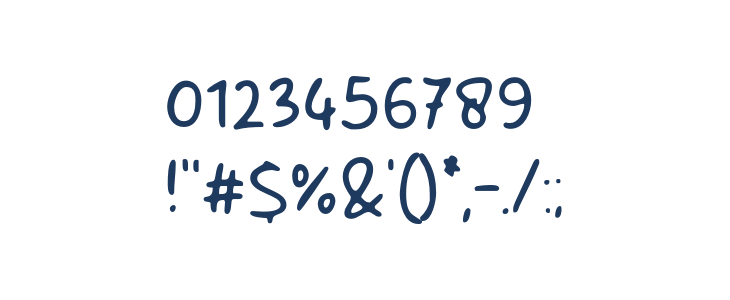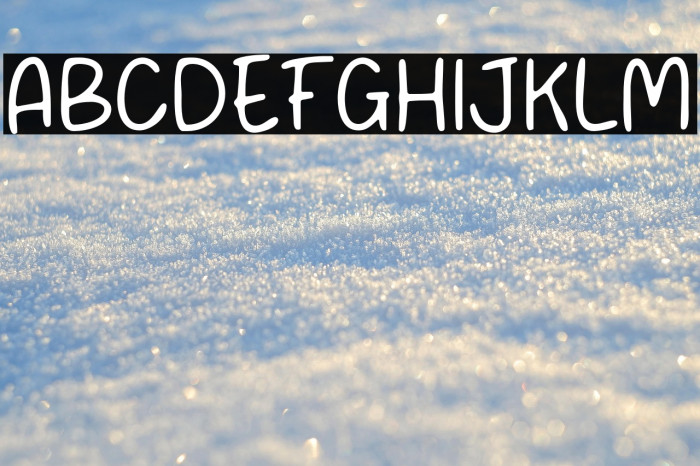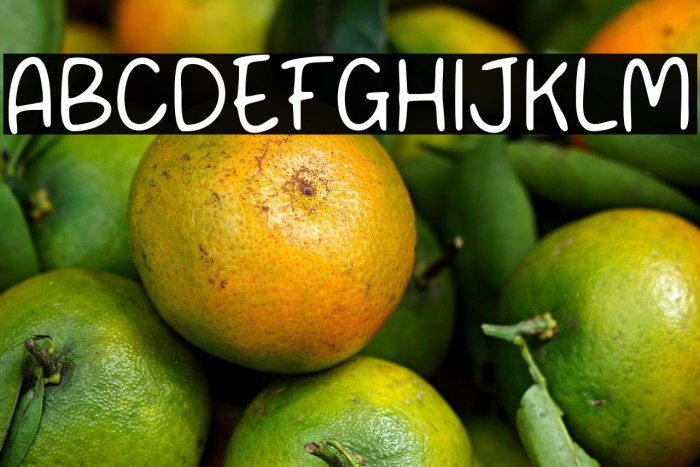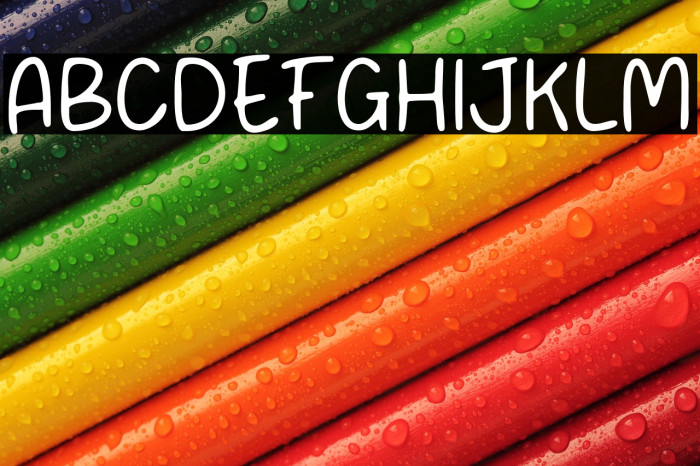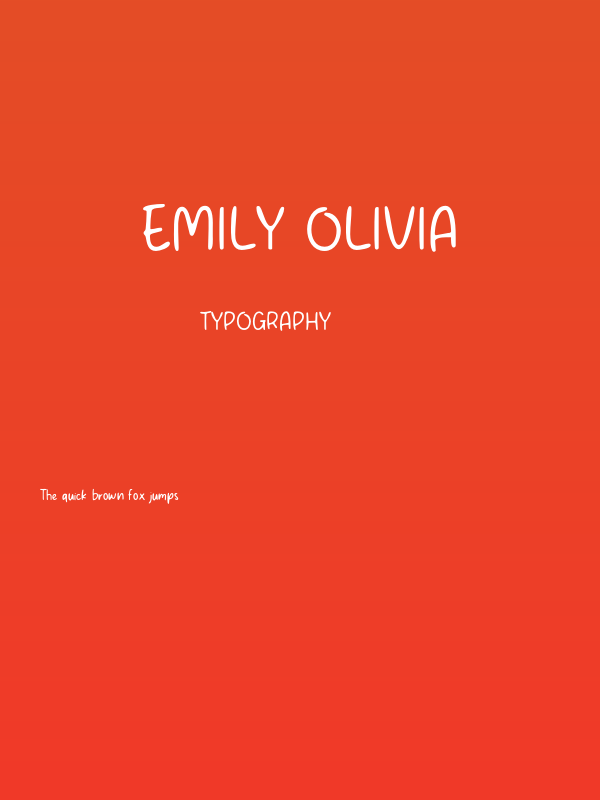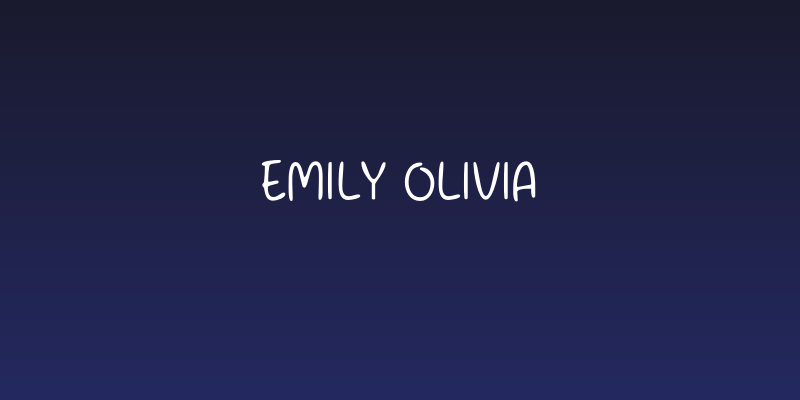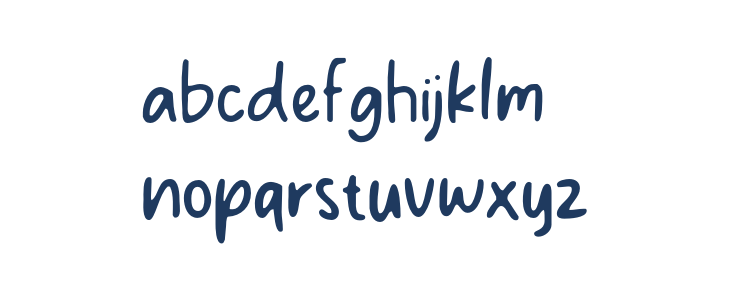
Emily Olivia Font
Emily Olivia Description
This font exudes a playful and casual handwritten style, characterized by its rounded and slightly irregular letterforms. The strokes are consistent in width, giving it a uniform appearance while maintaining a personal touch. The uppercase and lowercase letters are well-balanced, with a slight slant that adds to its informal charm. The numerals and special characters are crafted with the same playful spirit, making them easily legible and visually appealing. This font's overall design is approachable and friendly, perfect for projects that require a touch of personality and warmth.
| Use Case | Logos, Headlines, Informal Text |
| Proposed Projects | Ideal for greeting cards, children's books, casual branding, and social media graphics. |